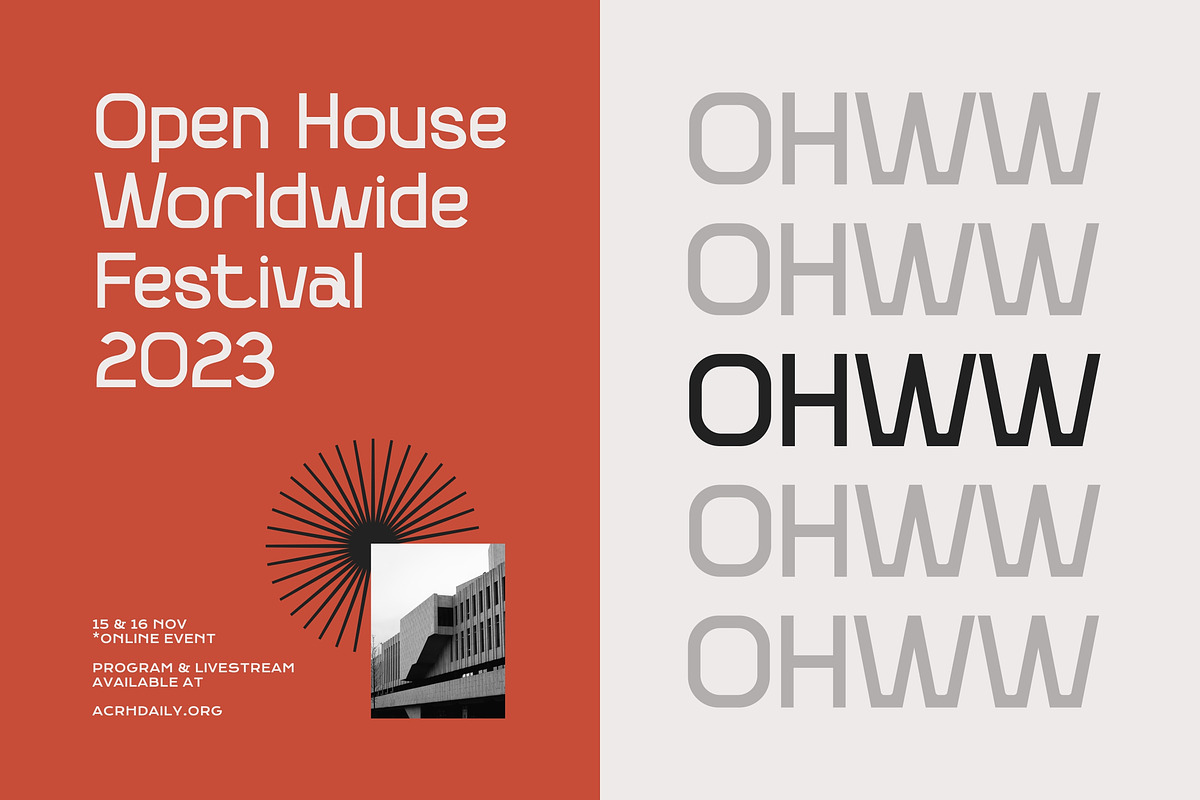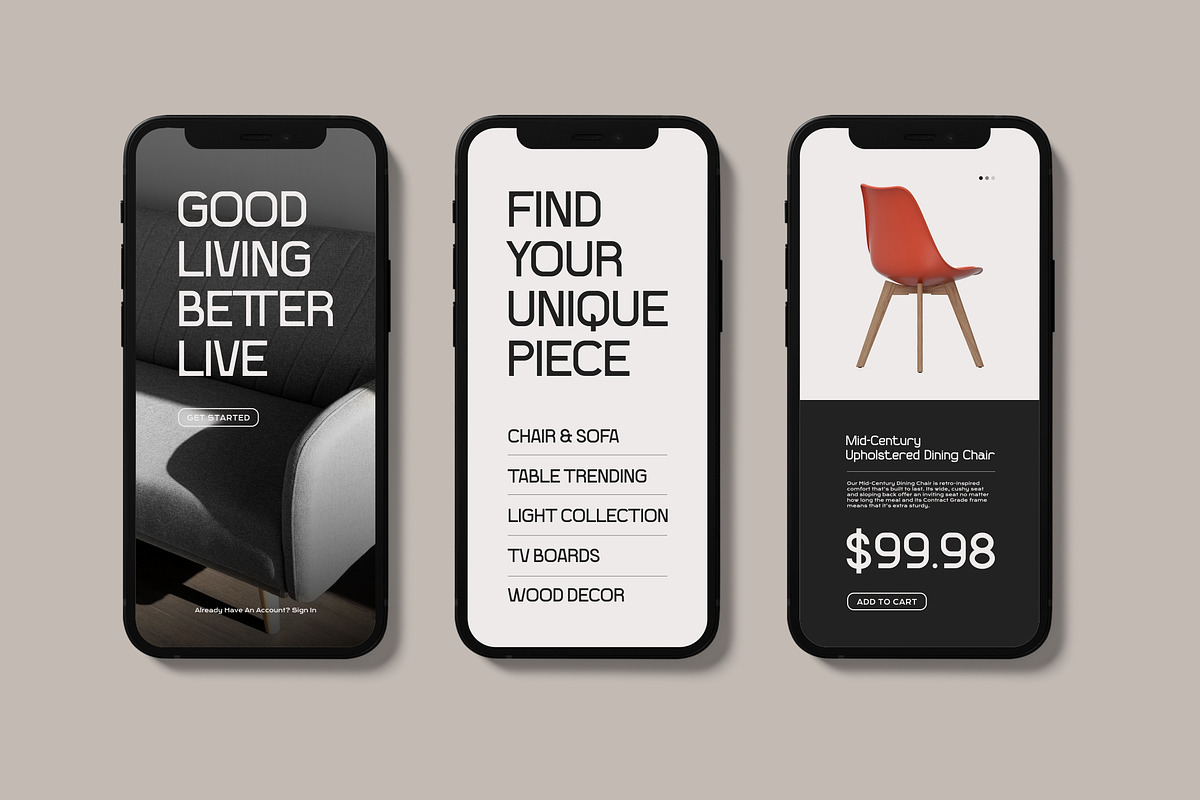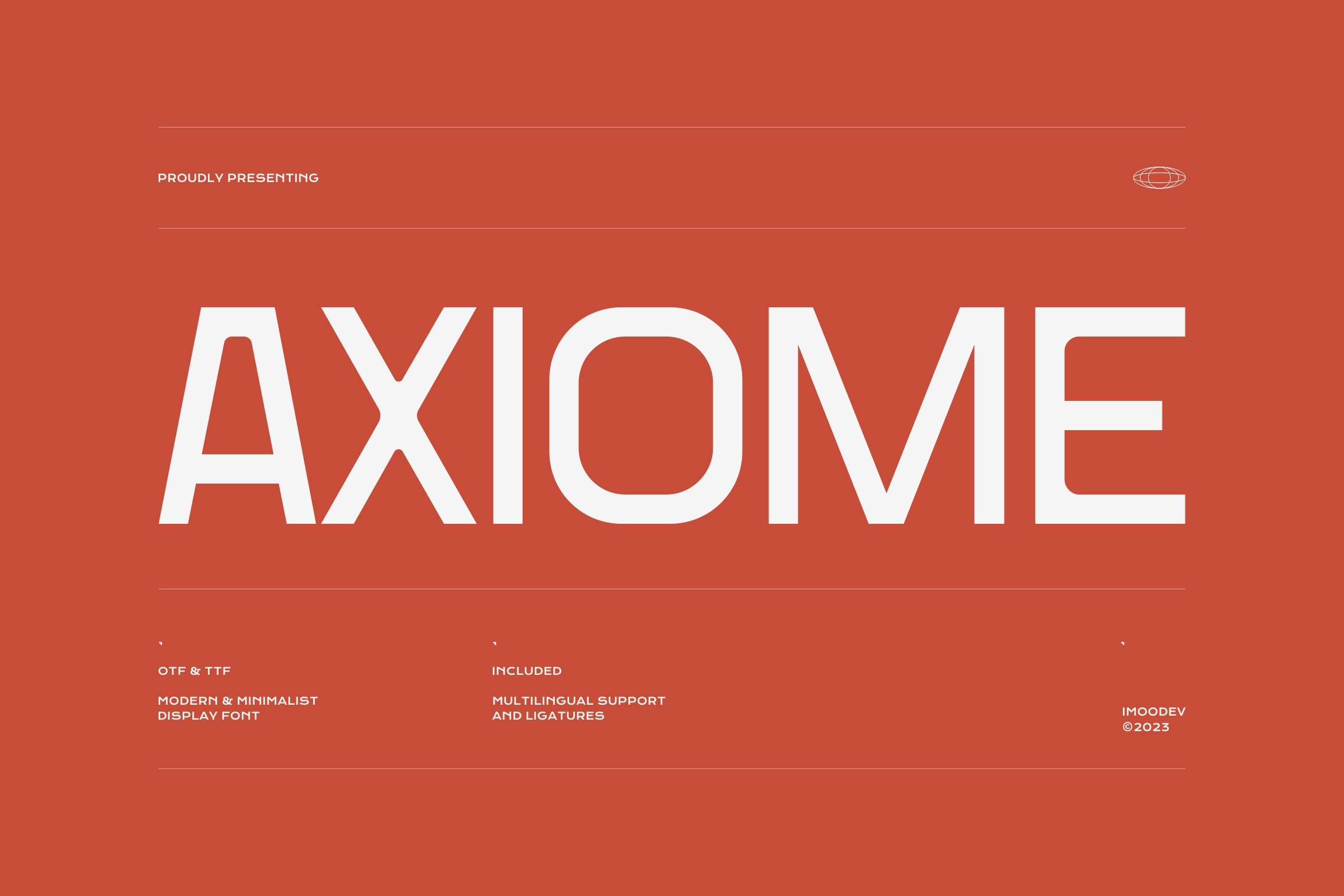
Axiome - Minimal Geometric Typeface
Meet Axiome, a beautifully crafted geometric sans serif font that embodies clarity, modernity, and minimalist elegance. Born from a foundation of clean lines and perfect circles, Axiome achieves a harmonious balance between technical precision and a warm, approachable feel.
The consistent monolinear stroke weight ensures excellent legibility across all sizes, from impactful headlines to functional user interfaces. Whether you're designing a sleek app interface, crafting a memorable logo for a tech startup, or creating stunning posters for a cultural event.